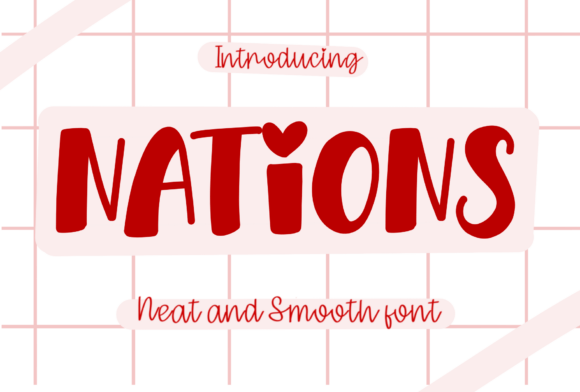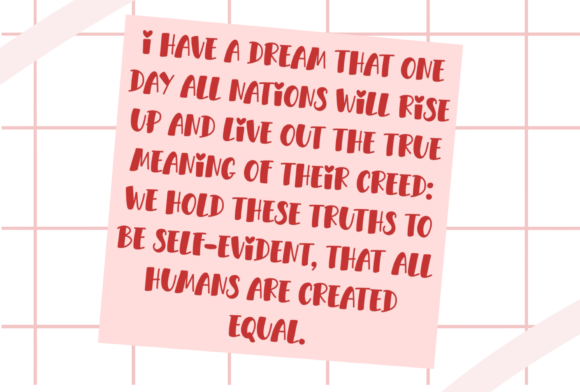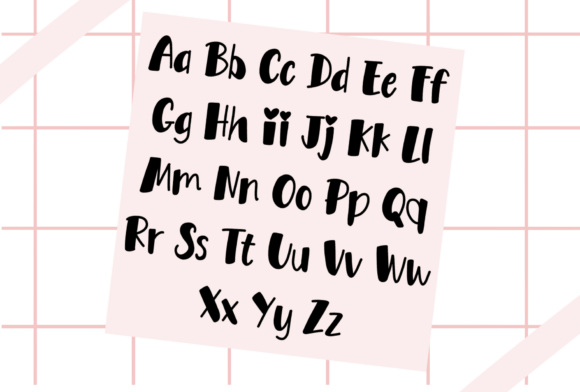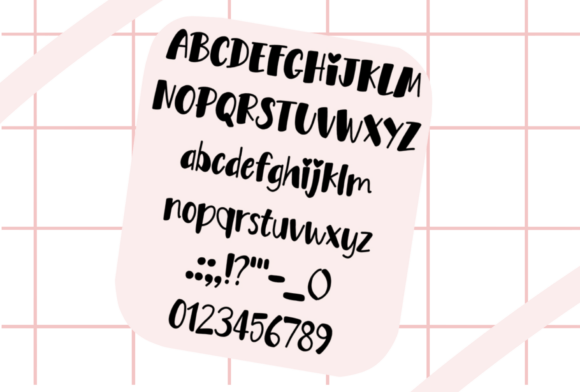
Nations Font: A Cute Handwritten Font for Digital Planning & Note-Taking
About the Nations Font
Explore the possibilities with Nations Font, a font that offers both beauty and functionality. Nations ,is a neat handwritten font, perfect for digital note-taking. This versatile font works great for various projects, including Procreate, blog posts, logos, branding, digital planners, invitations, greeting cards, photo albums, decorations, and more. It also supports multiple languages and adds a cute, personal touch to any design, especially on iPads and GoodNotes.
Nations is best suited for headlines, short text blocks, and branding applications where a friendly, approachable aesthetic is desired. Its handwritten nature makes it ideal for projects emphasizing personality and a handcrafted feel, such as invitations, greeting cards, or social media graphics. However, its legibility suffers in extended body text or UI contexts.
For optimal pairing, consider complementing Nations with a clean sans-serif like Lato for body copy, balancing its informal character with a modern, neutral counterpart. Alternatively, a classic serif such as Playfair Display could add a touch of elegance and sophistication to headlines incorporating Nations. Avoid pairing it with overly decorative or highly stylized fonts, as this risks visual clutter.
The overall personality of Nations is cheerful and informal, making it a great choice for brands targeting a younger demographic or those with a friendly, approachable image. It conveys a sense of warmth and authenticity.